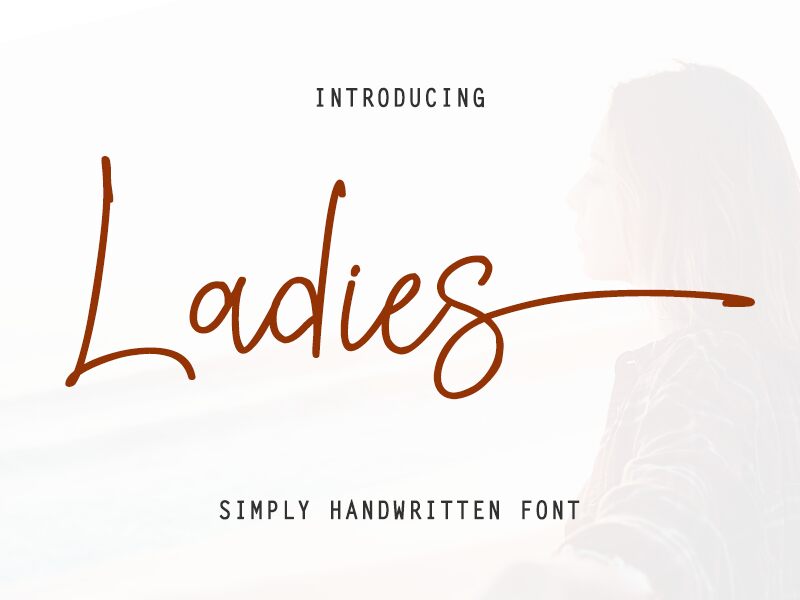
The Ladies font, designed by Aditiyo Dwi Putranto, is a casual handwritten script font with a light weight. It's perfect for creating trendy and stylish logos, invitations, and social media posts.